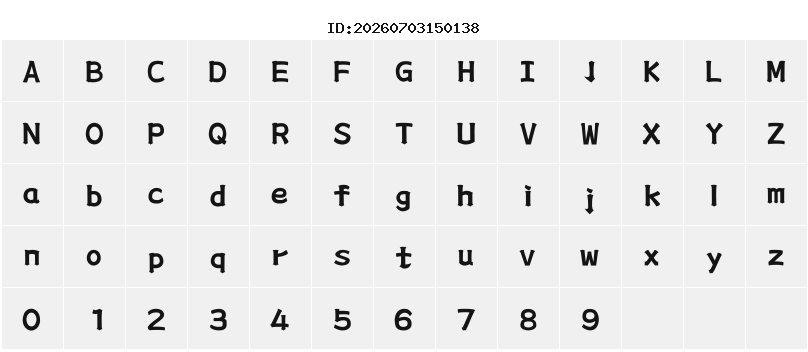
304-上首龙虎体 Preview
• Font Name: 304-上首龙虎体
• Manufacturer: 上首造字
About 304-上首龙虎体.ttf
304-上首龙虎体.ttf is a modern, elegant sans-serif font designed for ultimate readability and visual harmony. Perfect for branding, headlines, web design, and print materials.